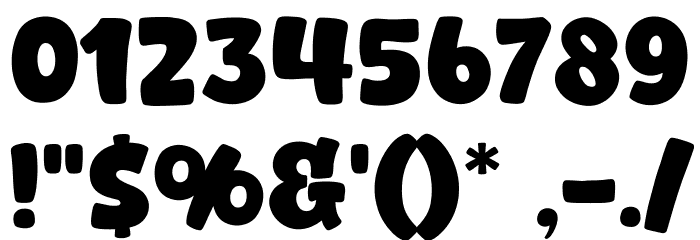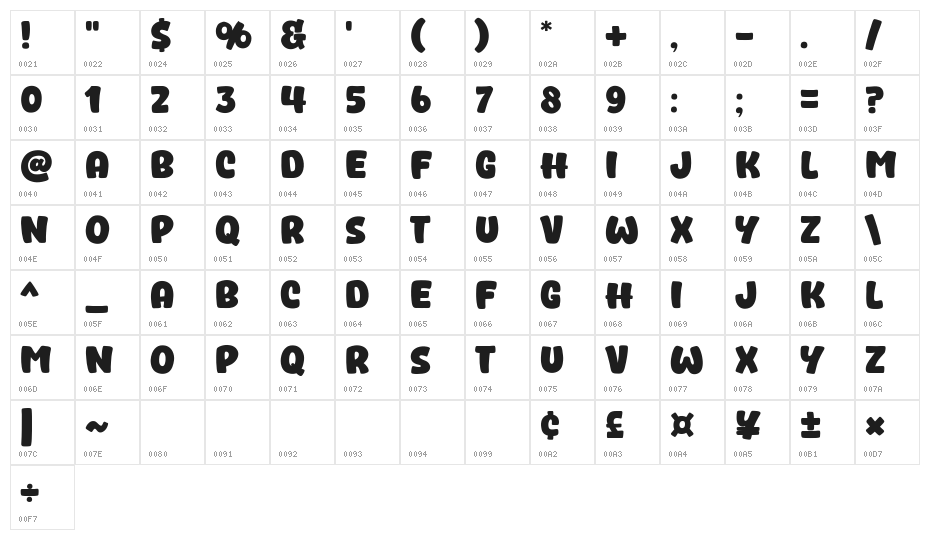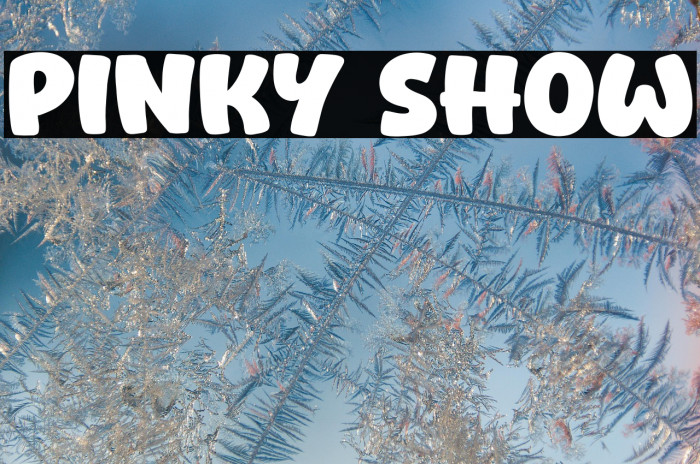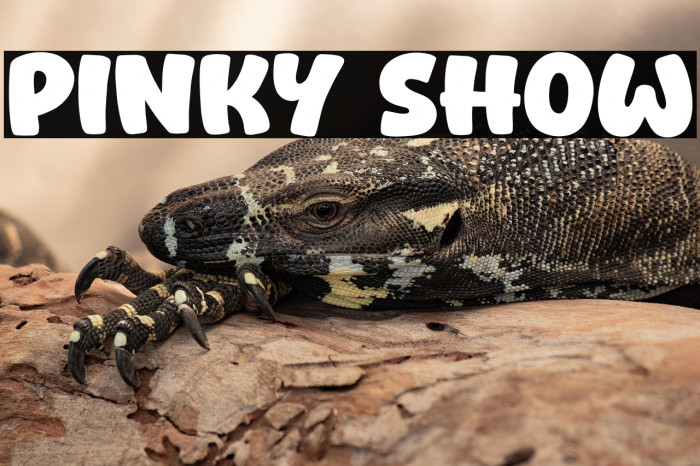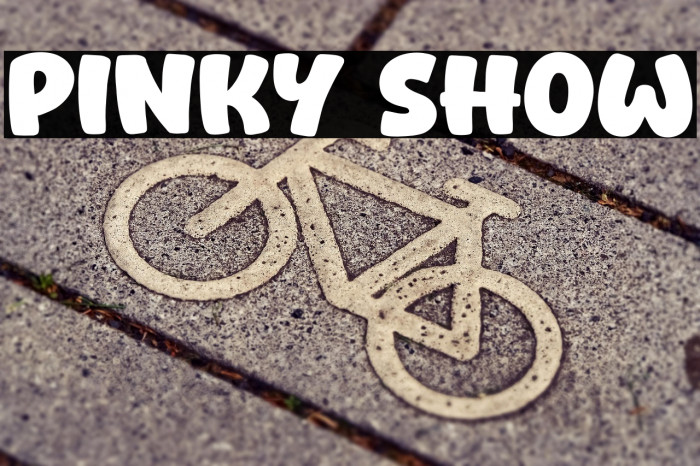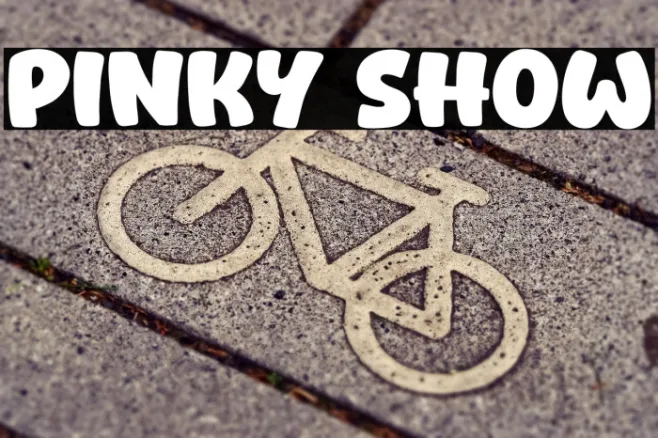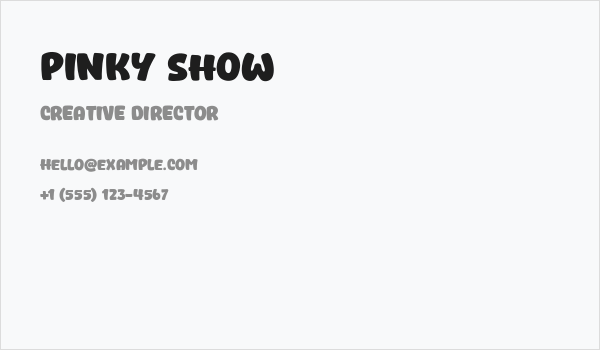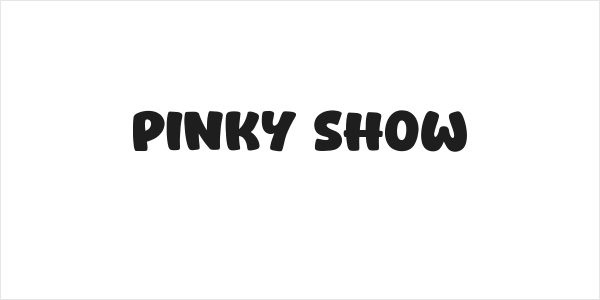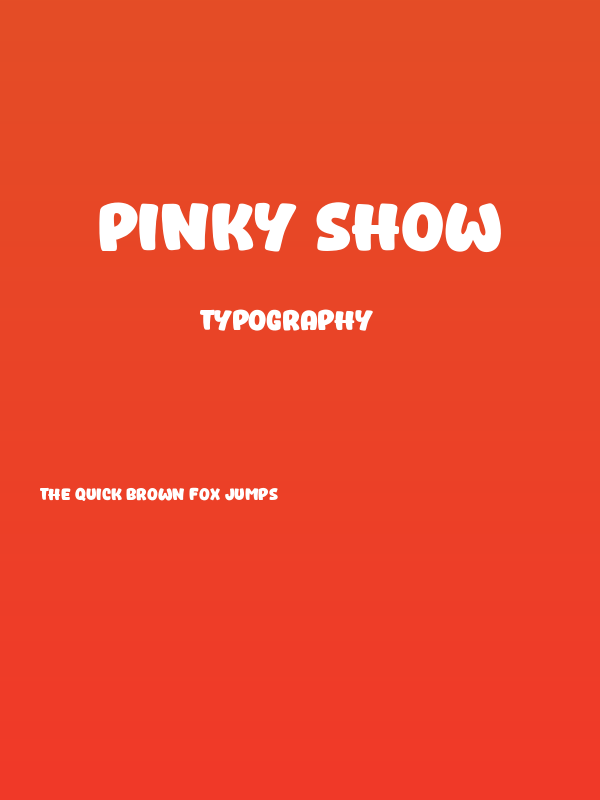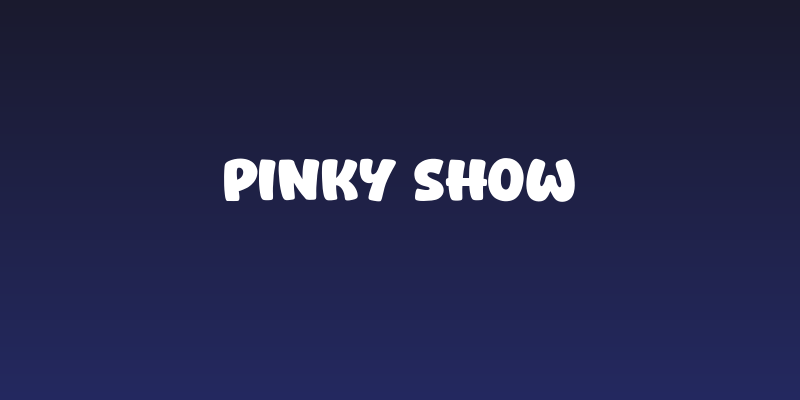
Pinky Show Font
Pinky Show Description
This playful and bold font features thick, rounded characters that exude a sense of fun and whimsy. The letters are uniformly bold with a consistent stroke width, giving them a cartoonish and approachable appearance. The rounded edges and lack of sharp angles contribute to its friendly and informal style. The numbers and special characters maintain the same playful aesthetic, making the font versatile for various creative applications. Its boldness ensures high visibility, making it suitable for attention-grabbing designs.
| Proposed Projects | Ideal for children's books, comic strips, playful branding, and event posters. |